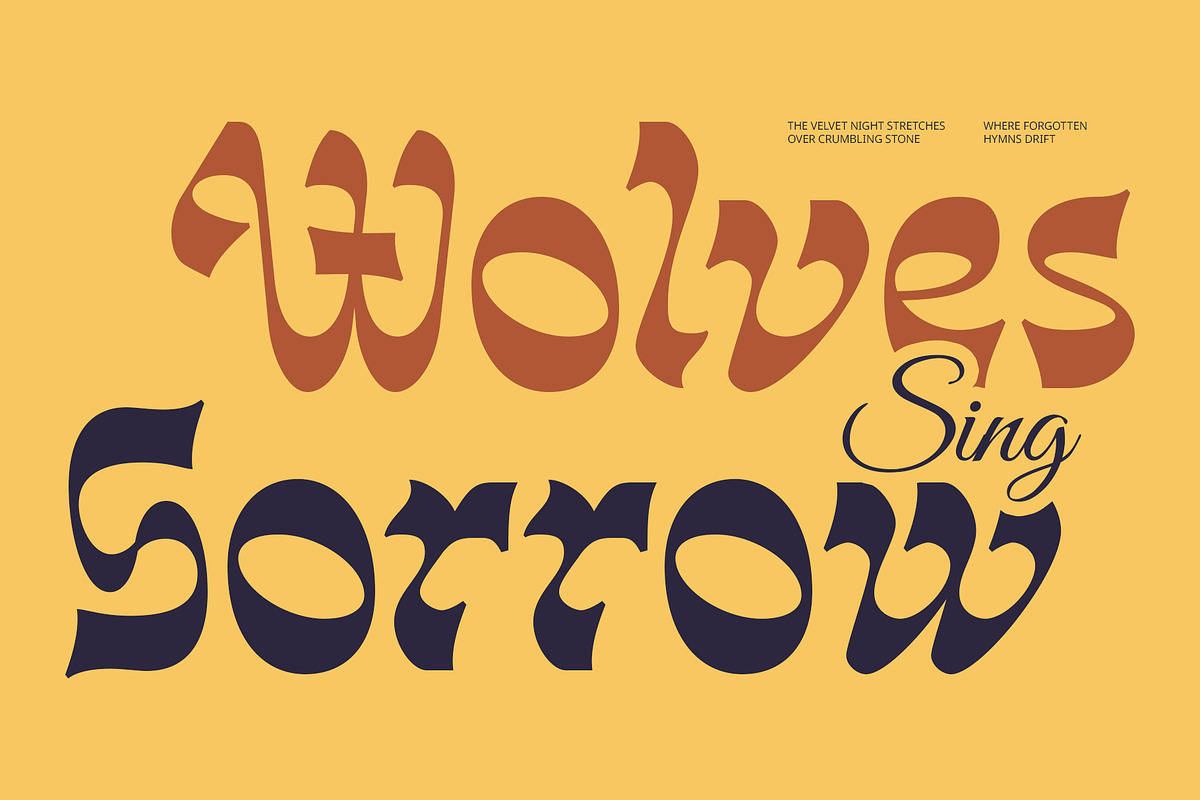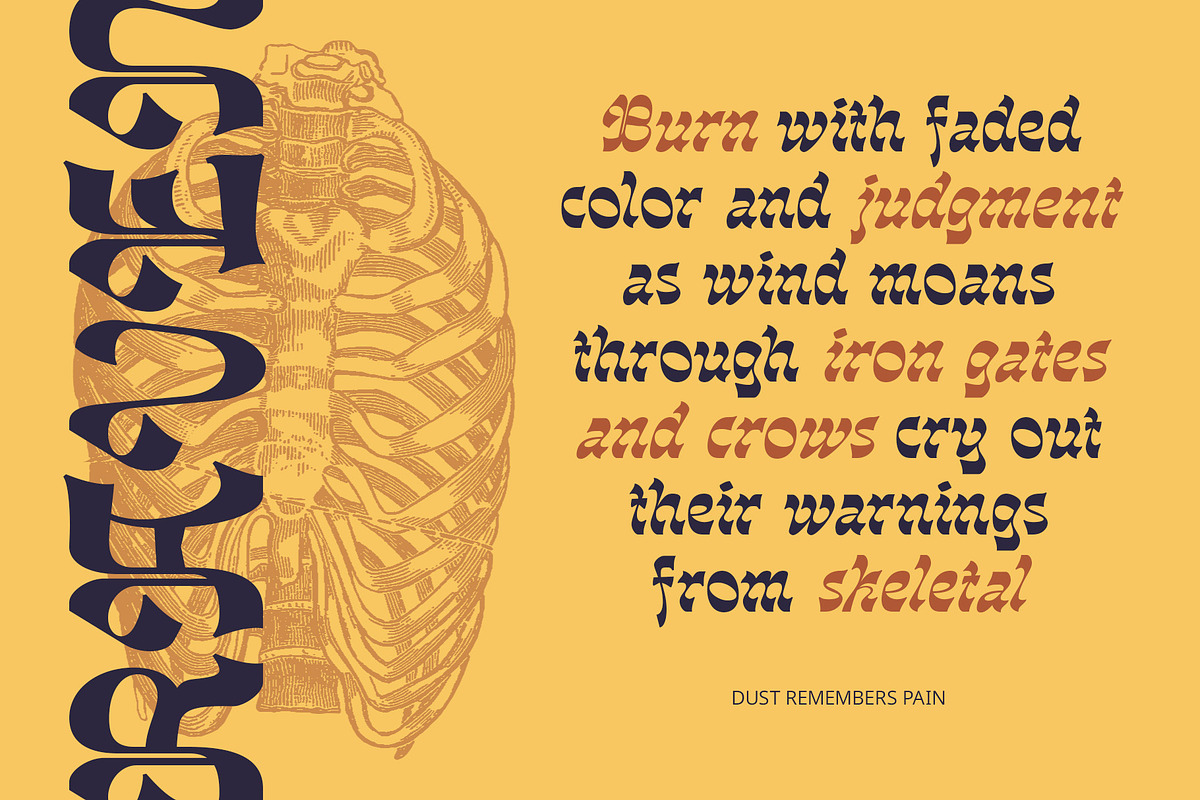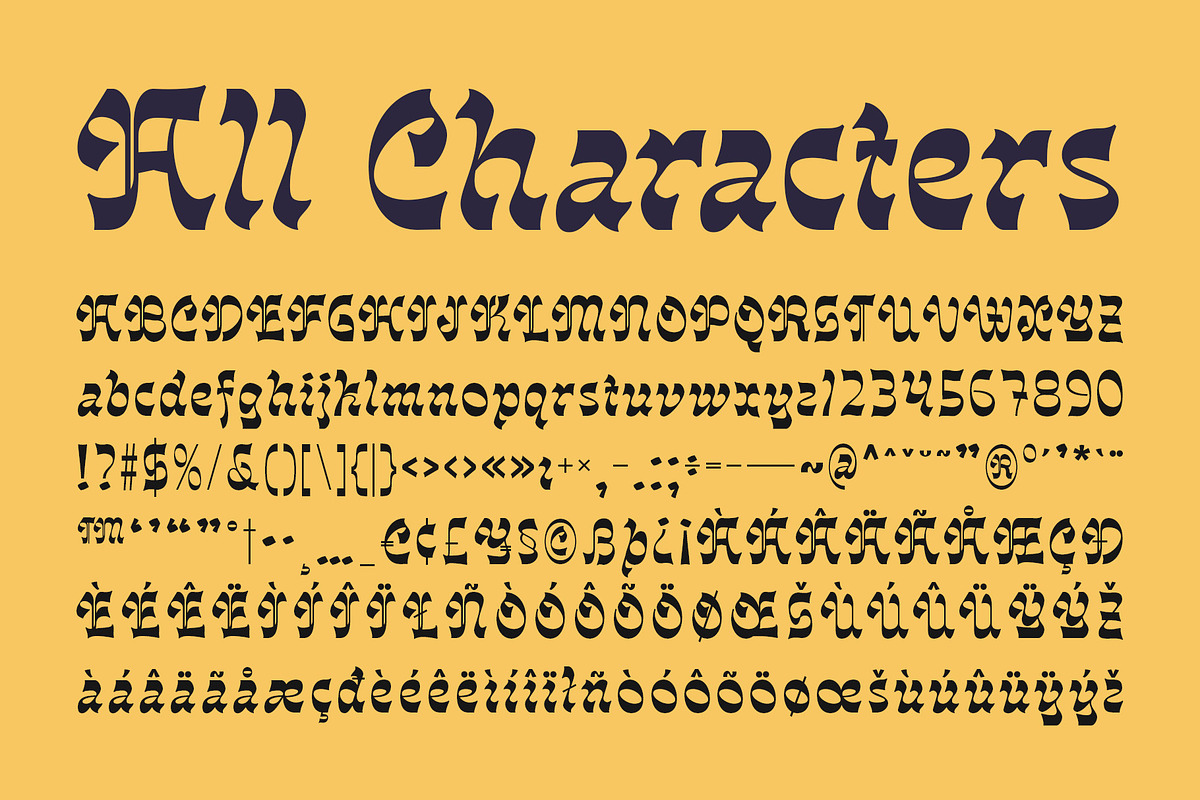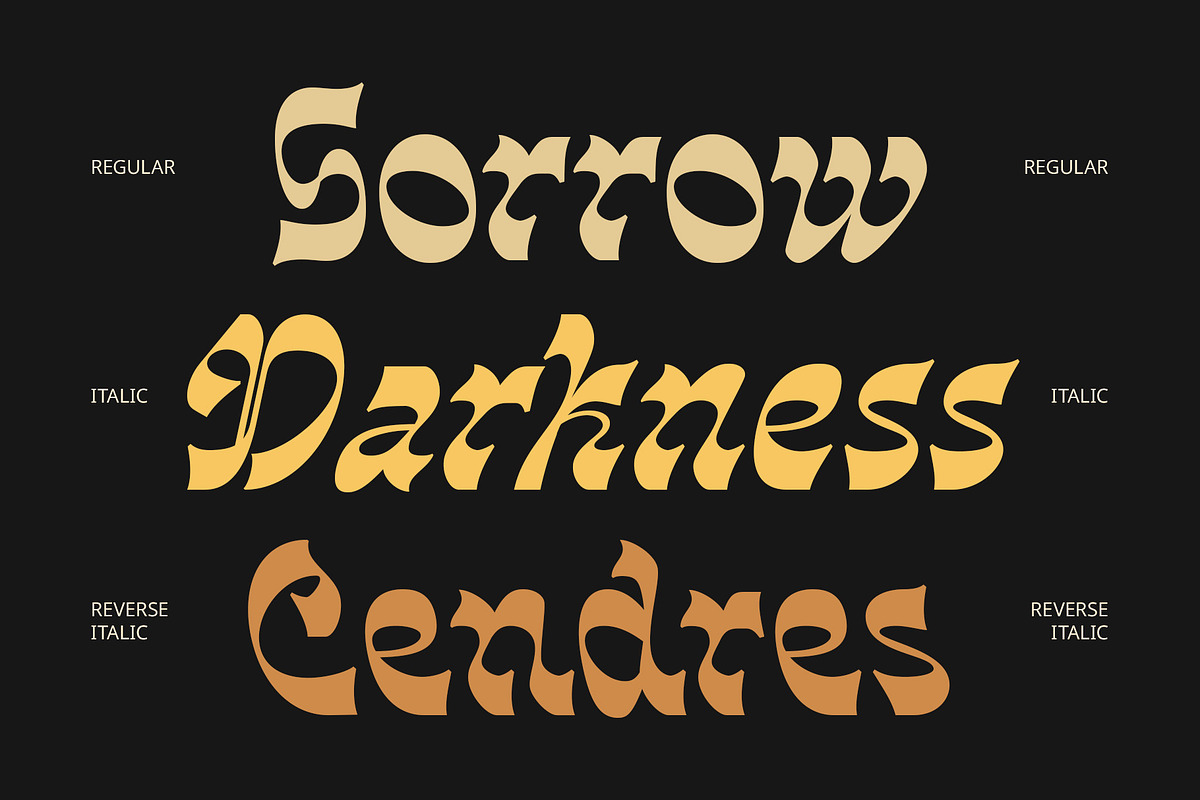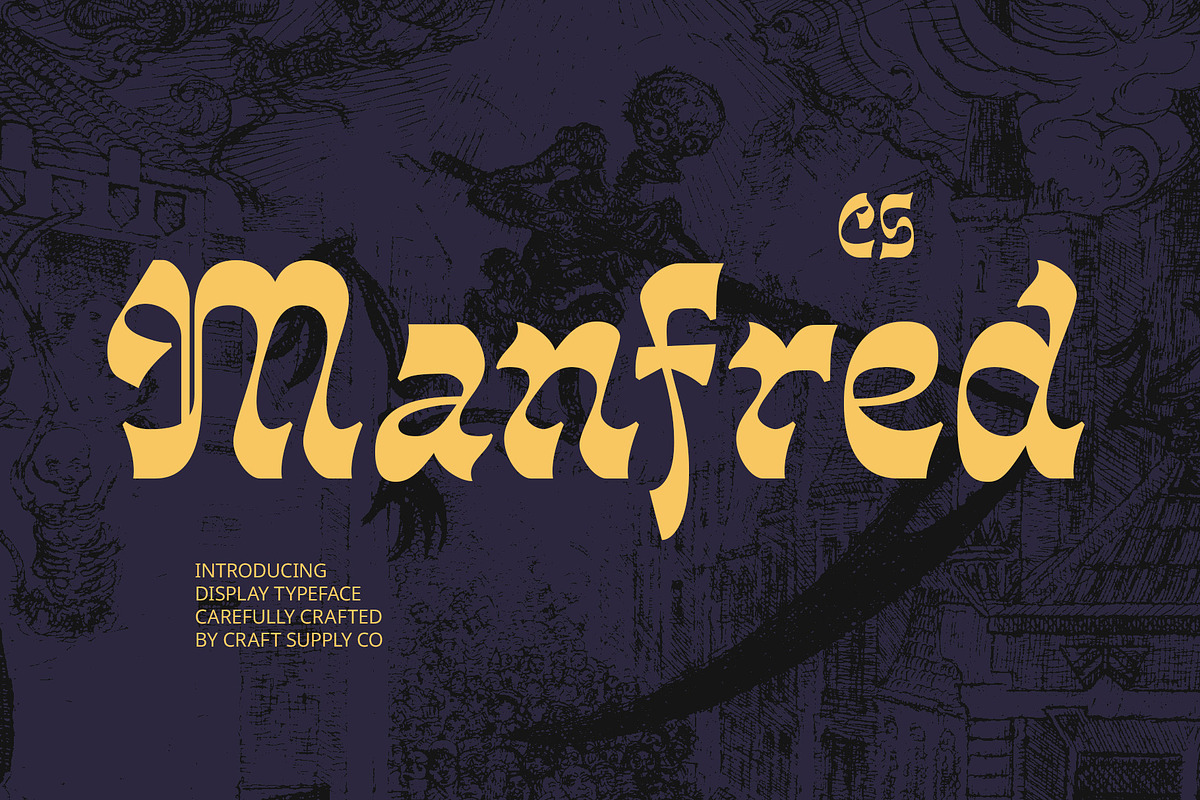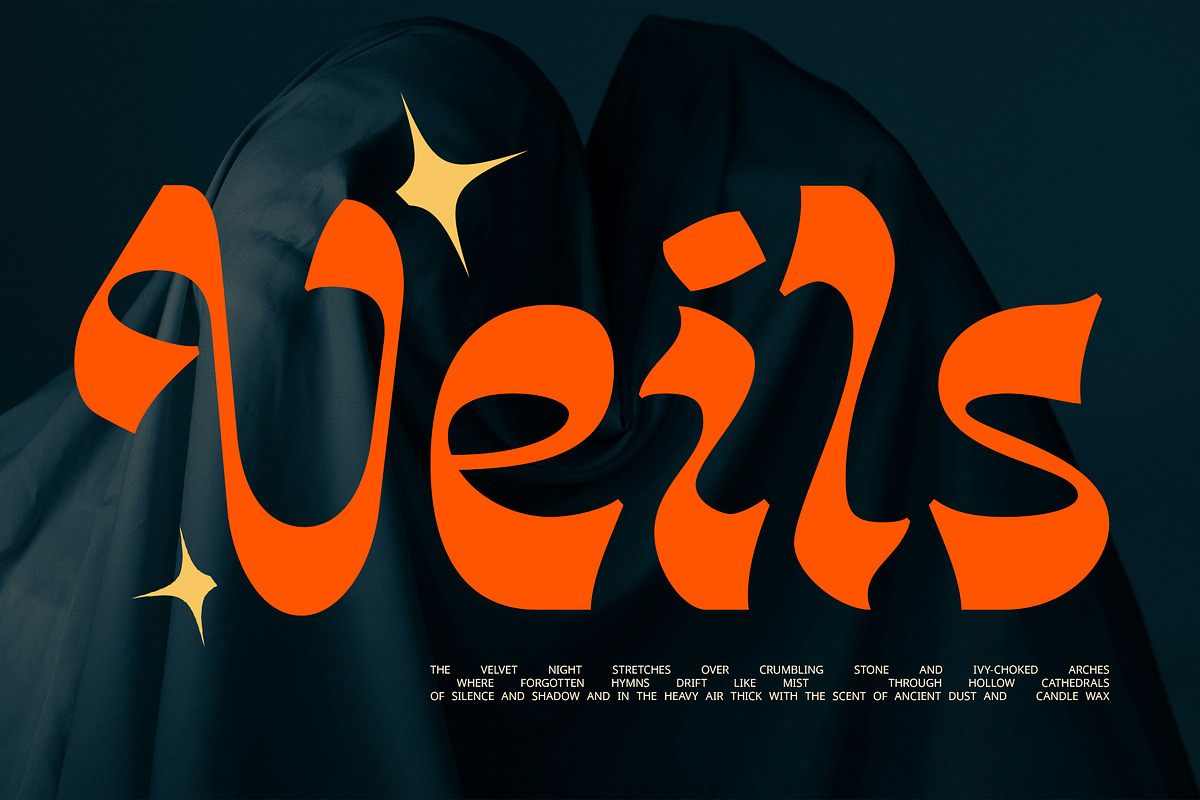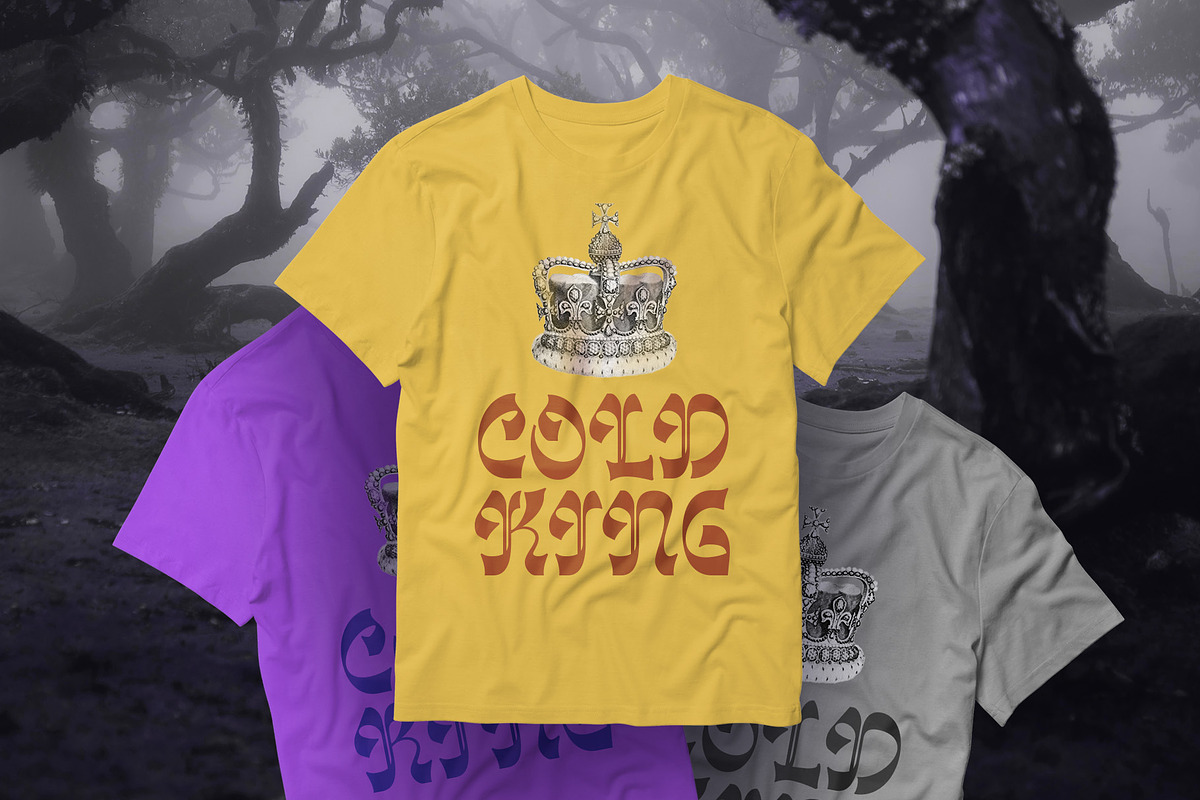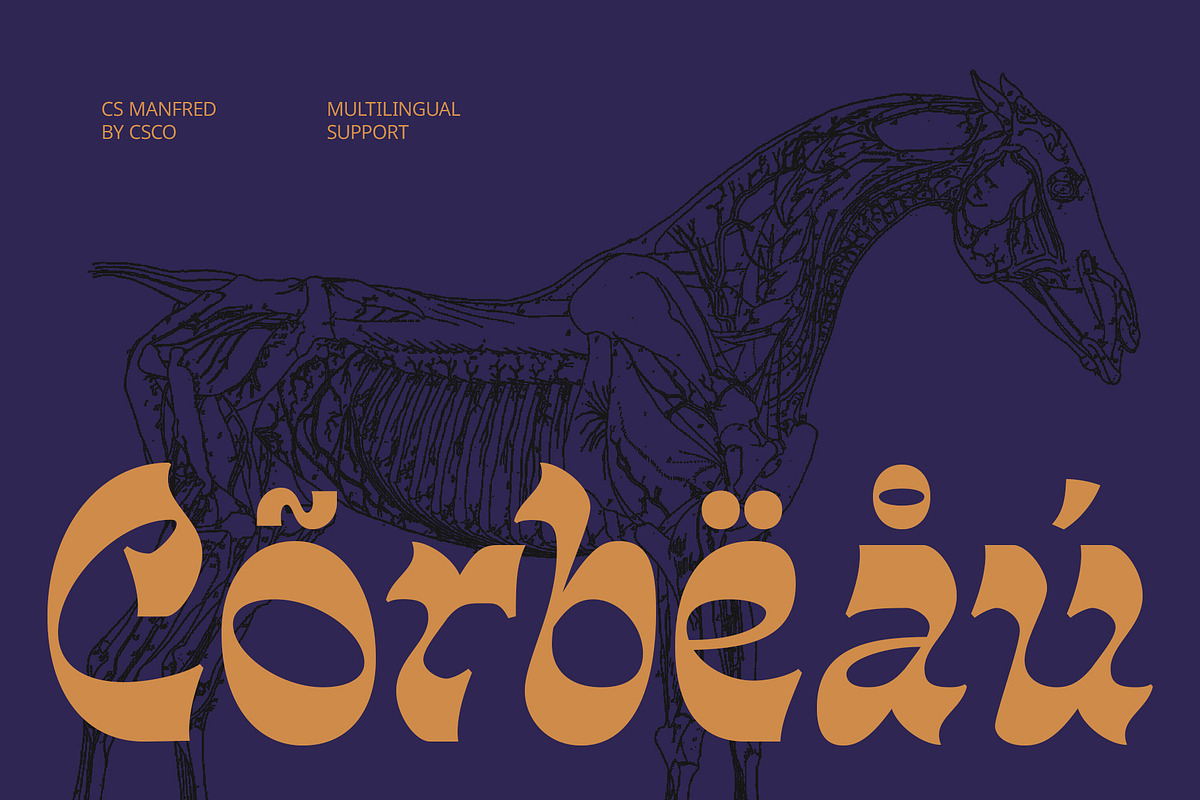
CS Manfred – Reverse Contrast Font
CS Manfred – Retro Reverse Contrast Display Font
Bold, Classic, and Creatively Unconventional CS Manfred is a display font that features striking reverse contrast, where the horizontal strokes are thicker than the verticals—delivering a surprising twist on traditional type structure. This reversal creates an instantly recognizable and bold visual rhythm that evokes a strong retro flair while staying fresh and engaging for modern use.
A Vintage Feel with a Distinctive Edge Its classic design infused with reverse contrast styling makes CS Manfred stand out in any layout. Perfectly suited for posters, labels, packaging, and retro-inspired branding, this font captures attention through its dramatic, stylized presence. Whether used in short headlines or large-scale displays, it injects personality and flair into your composition.
Eye-Catching and Character-Driven More than just nostalgic, CS Manfred’s unique weight distribution and expressive forms make it ideal for creative projects that aim to be visually unconventional yet charmingly familiar. It’s a great choice for designers seeking to add retro character, artistic boldness, and a touch of vintage experimentation to their work.
Ideal for Posters, Packaging, and Vintage Branding Whether used in classic-inspired packaging, editorial titles, or expressive branding, CS Manfred delivers a look that’s both memorable and full of retro flair. It’s perfect for designs that seek to stand out with a touch of timeless rebellion.
- CS Manfred Regular
- CS Manfred Italic
- CS Manfred Reverse Italic